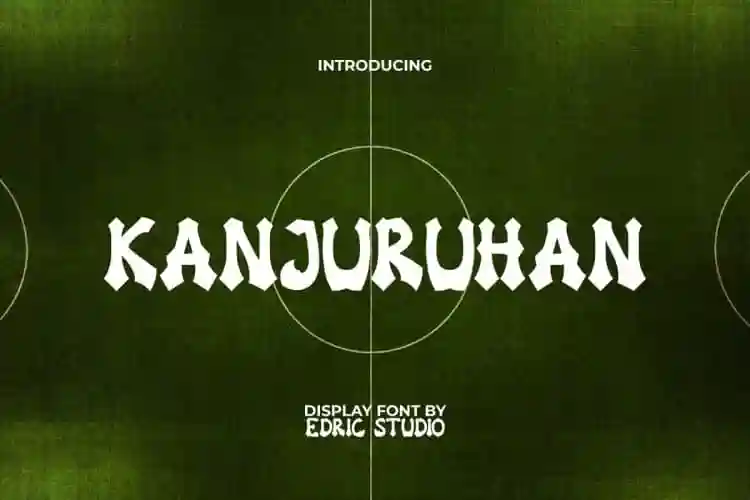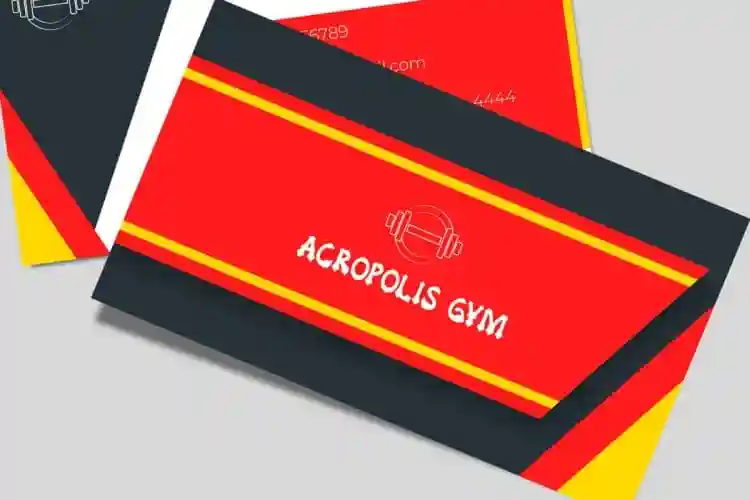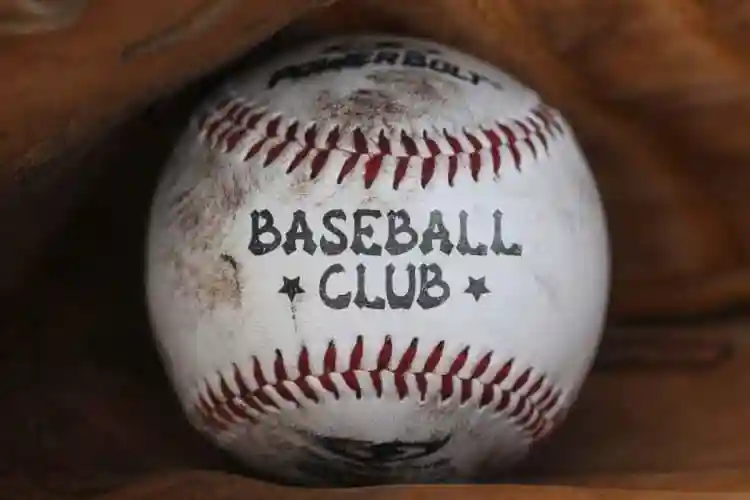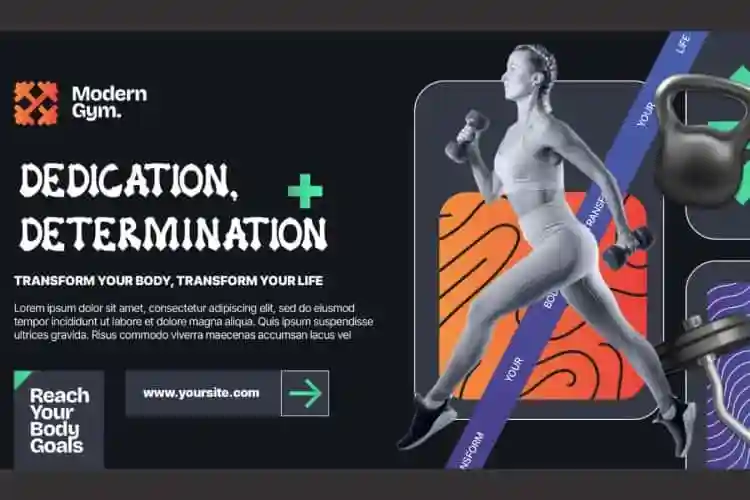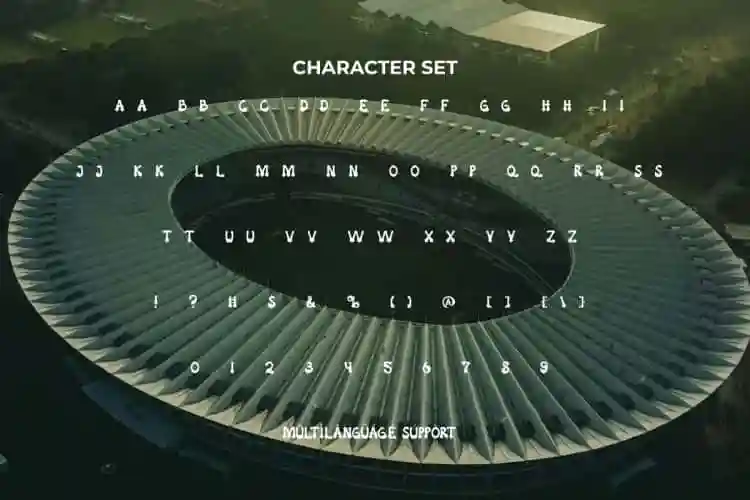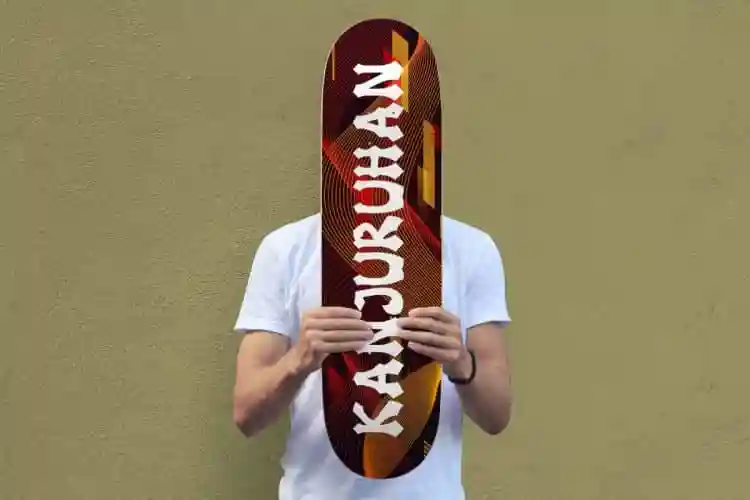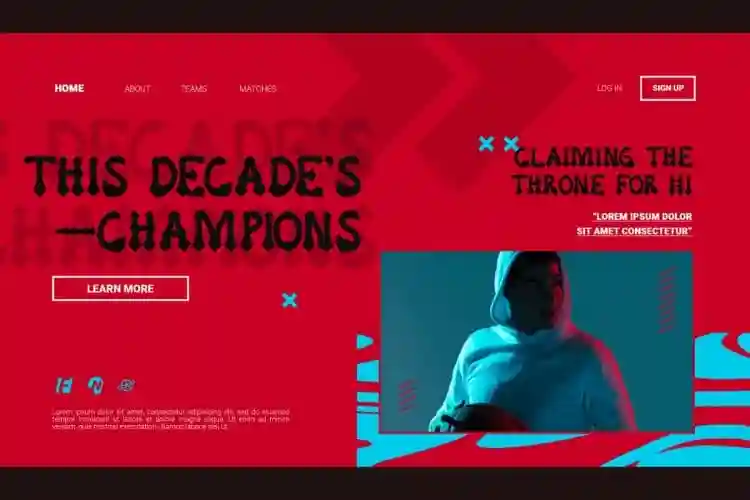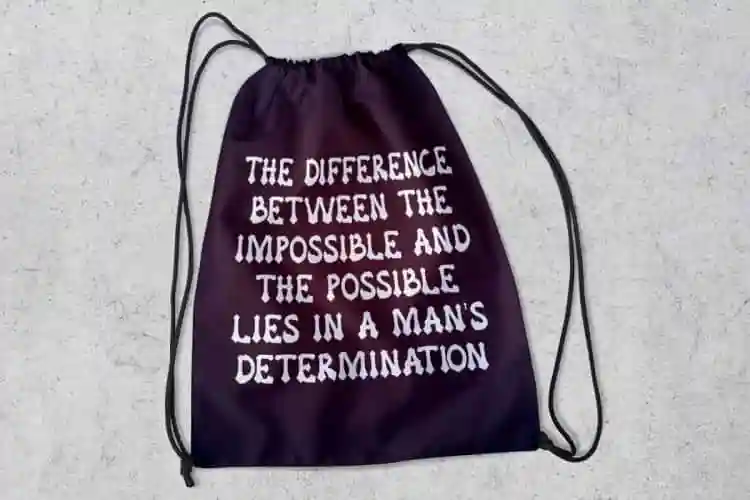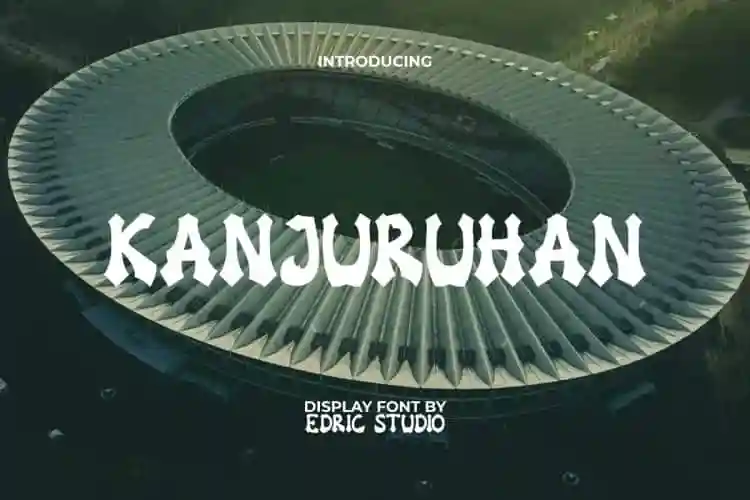
Kanjuruhan Font is a unique retro style letter display font with an artistic touch. Inspired from real events, the unique letter shape with a sports feel chosen as the theme makes it suitable for your next design project. It can used for various purposes such as blogs, brand logo, brochure, covers, headline, poster, screen print, sport card, stationery, sticker, titles, websites, and much more.
Kanjuruhan Font includes a complete set of ALL CAPS for Uppercase and Lowercase Letters, Numbers, Punctuation and Symbols.It will be perfect for use in various project purposes, such as accessories and merchandise, automotive, cafeteria, energy drink brands, fitness center, graphic design, sports, sportswear brand, etc.